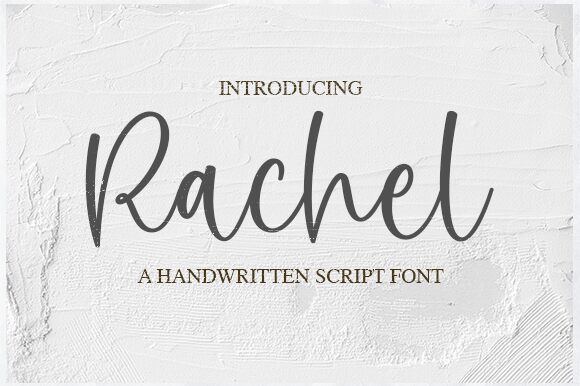
Rachel font by Graphix Line Studio is a captivating handwritten typeface that beautifully captures the charm and fluidity of personal script. Its elegant, flowing lines and natural curves offer a genuine, artistic feel, making it perfect for creative projects that require a personal touch. Ideal for wedding invitations, branding, or social media graphics, this free font stands out with its unique aesthetic appeal.
This handwriting style is versatile yet distinctive enough to make your designs pop. The Rachel font balances readability with elegance, ensuring your text communicates effectively while adding an artistic flair.